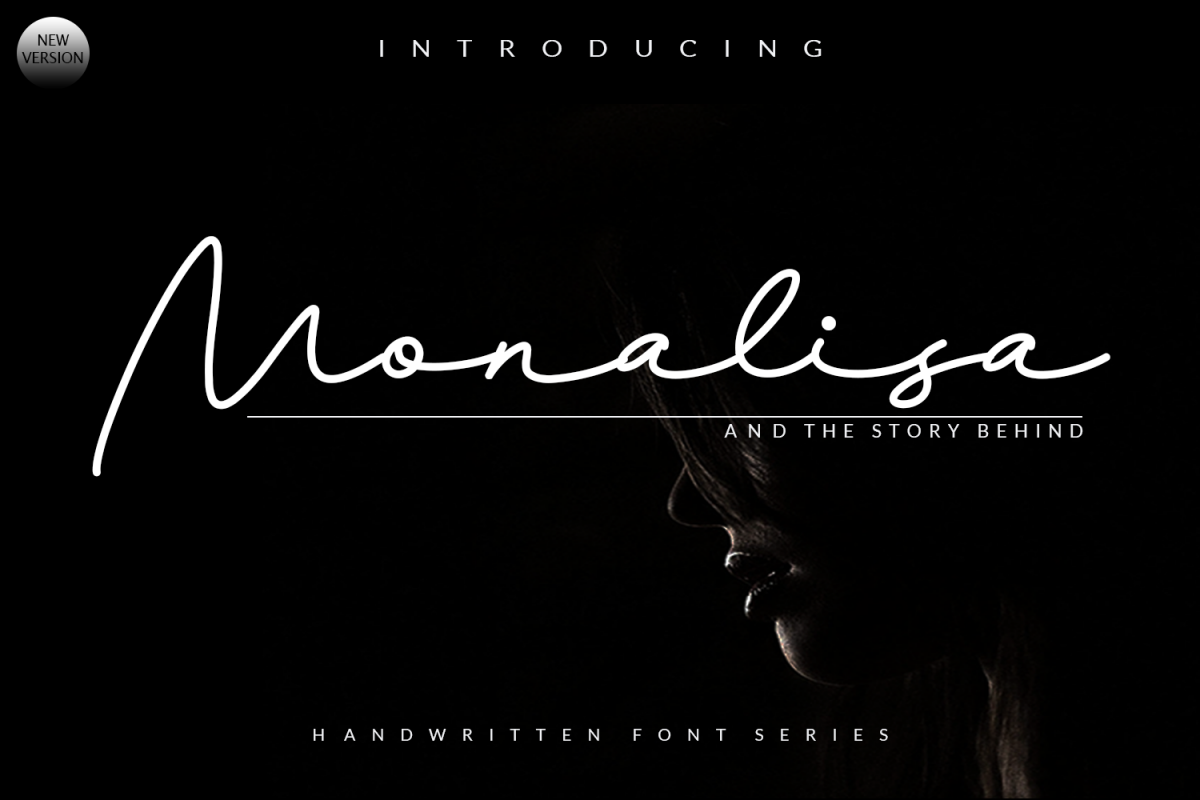
Monalisa Script
Monalisa Script: is light and casual handwritten font with a smooth baseline. It will add a charming touch to any design idea!
Monalisa Script:
is perfect for branding projects, logo, wedding designs, social media posts, advertisements, product packaging, product designs, label, photography, watermark, invitation, stationery, and any projects that need handwriting taste.
• More than 246 of glyphs
• Tons of Ligature